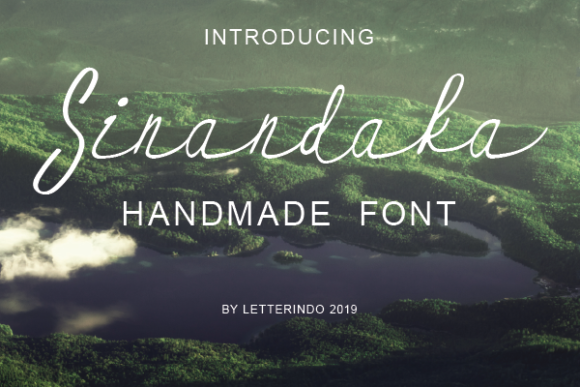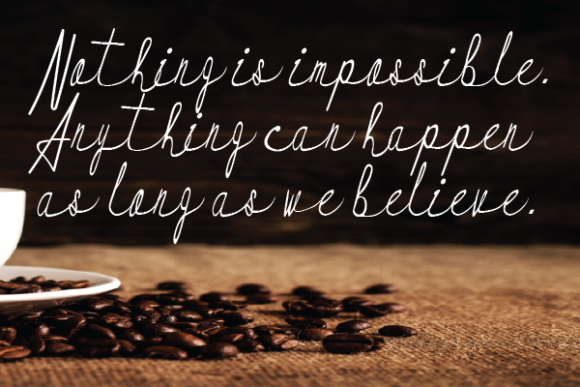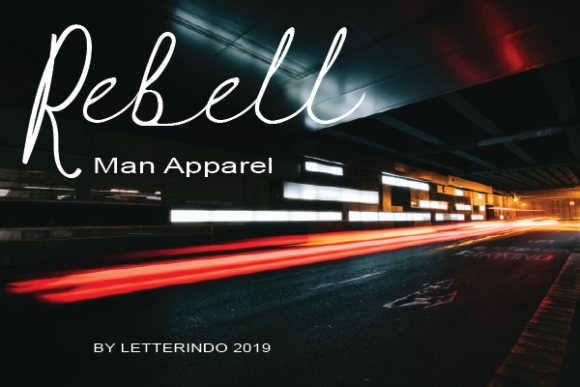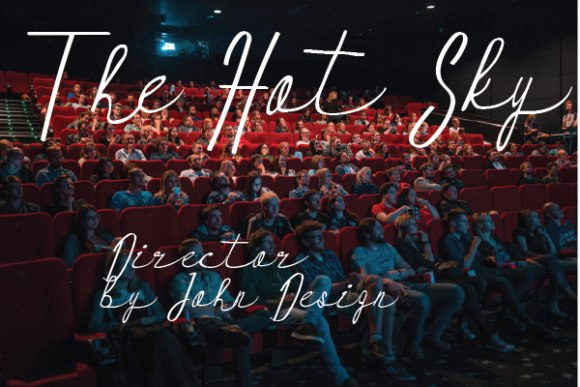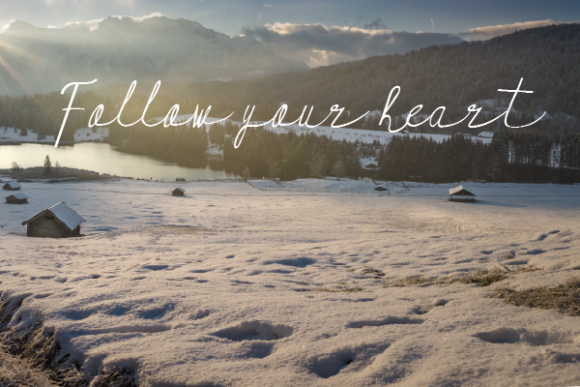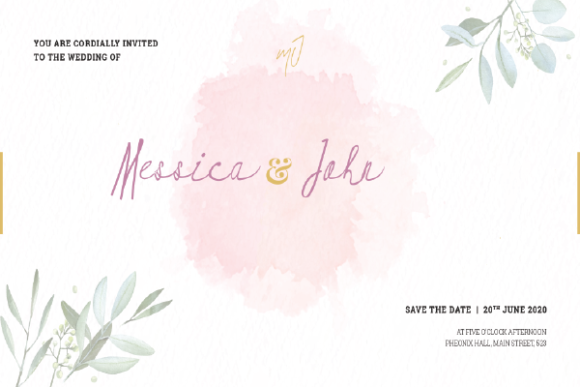
Sinandaka Font
About Sinandaka Font
Sinandaka is sweet and gorgeous hand-written font. It’s perfect for designers, quotes, invitations, movies, social media posts and much more! Ignite your creativity with this font.